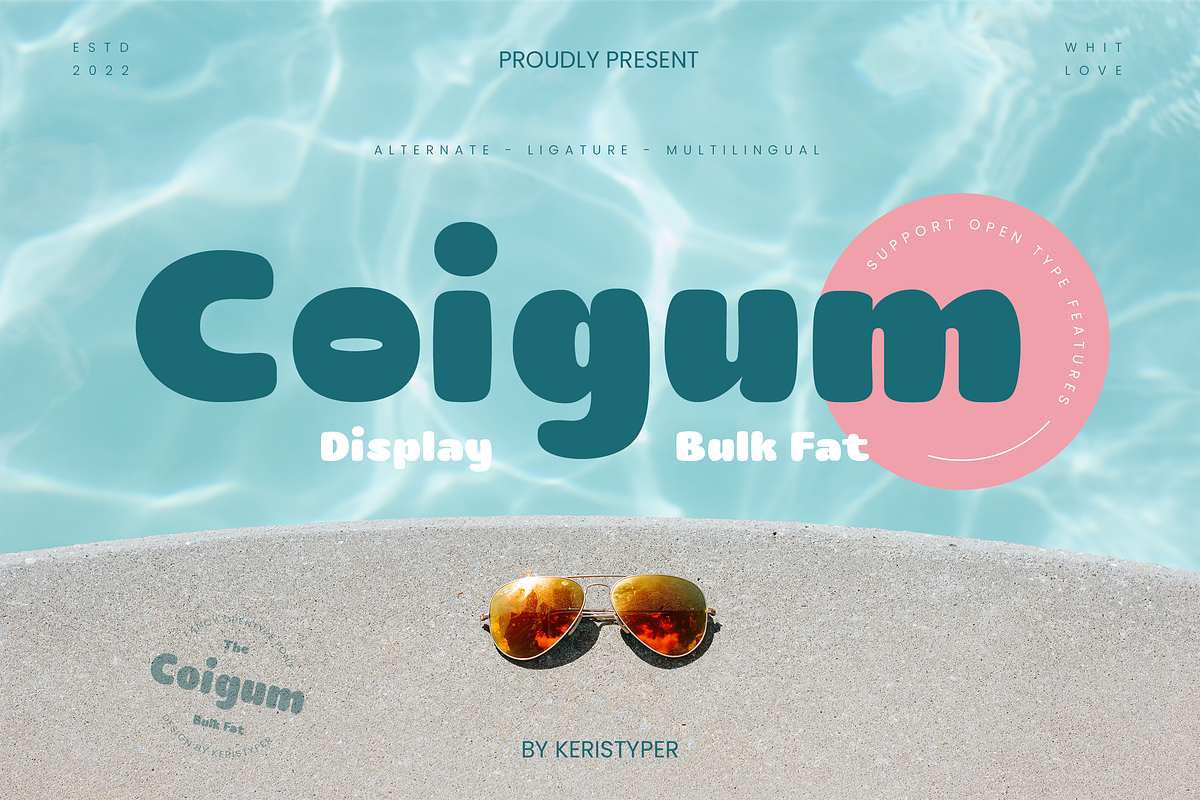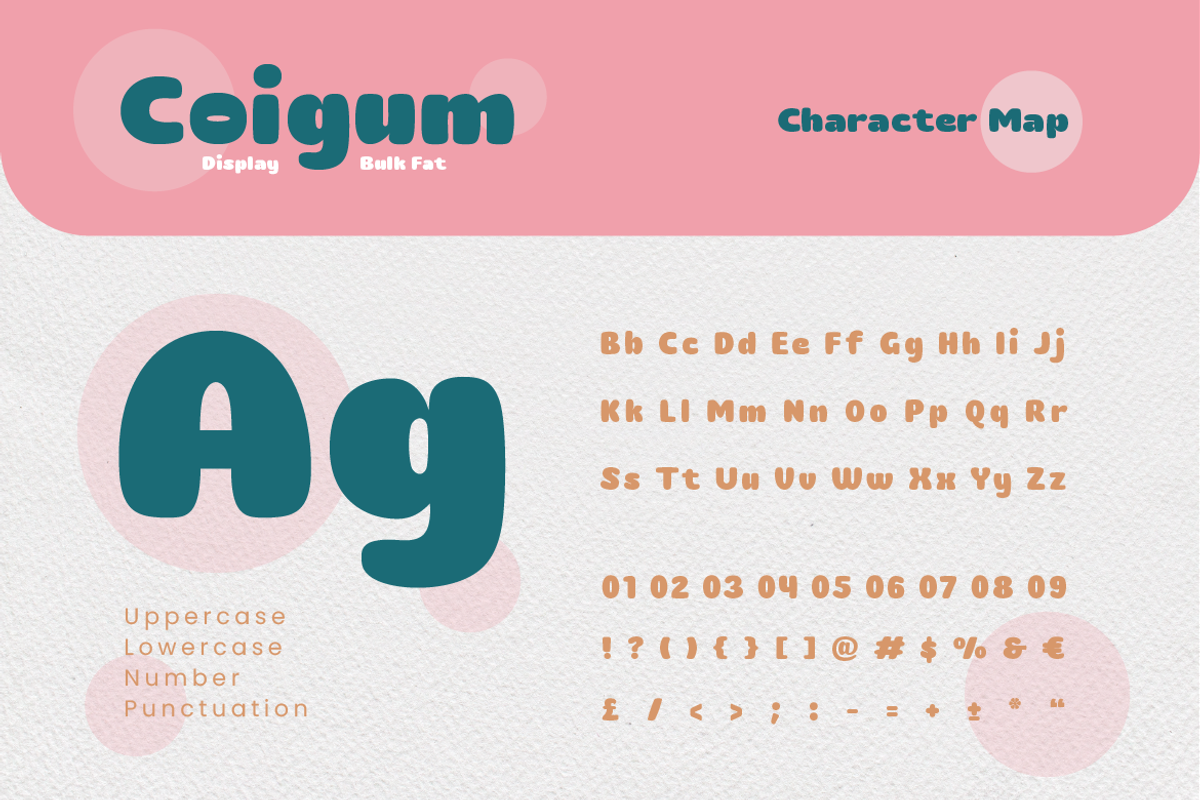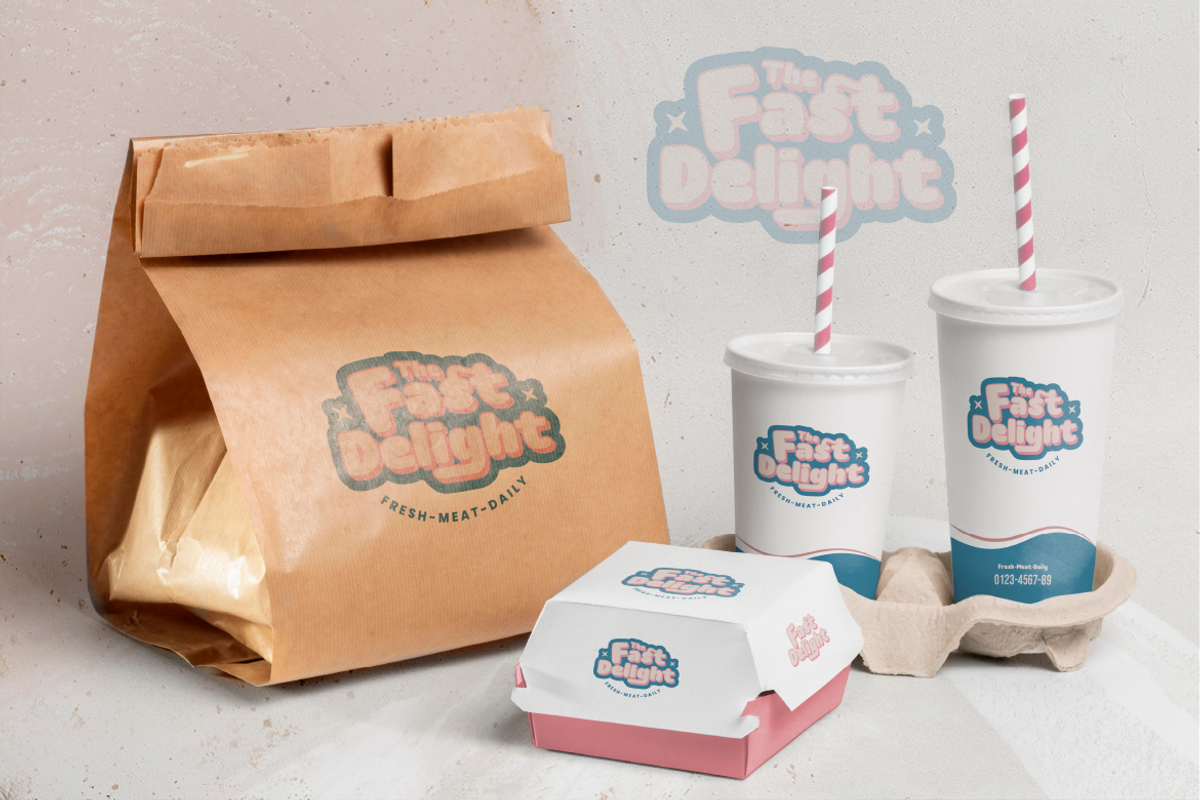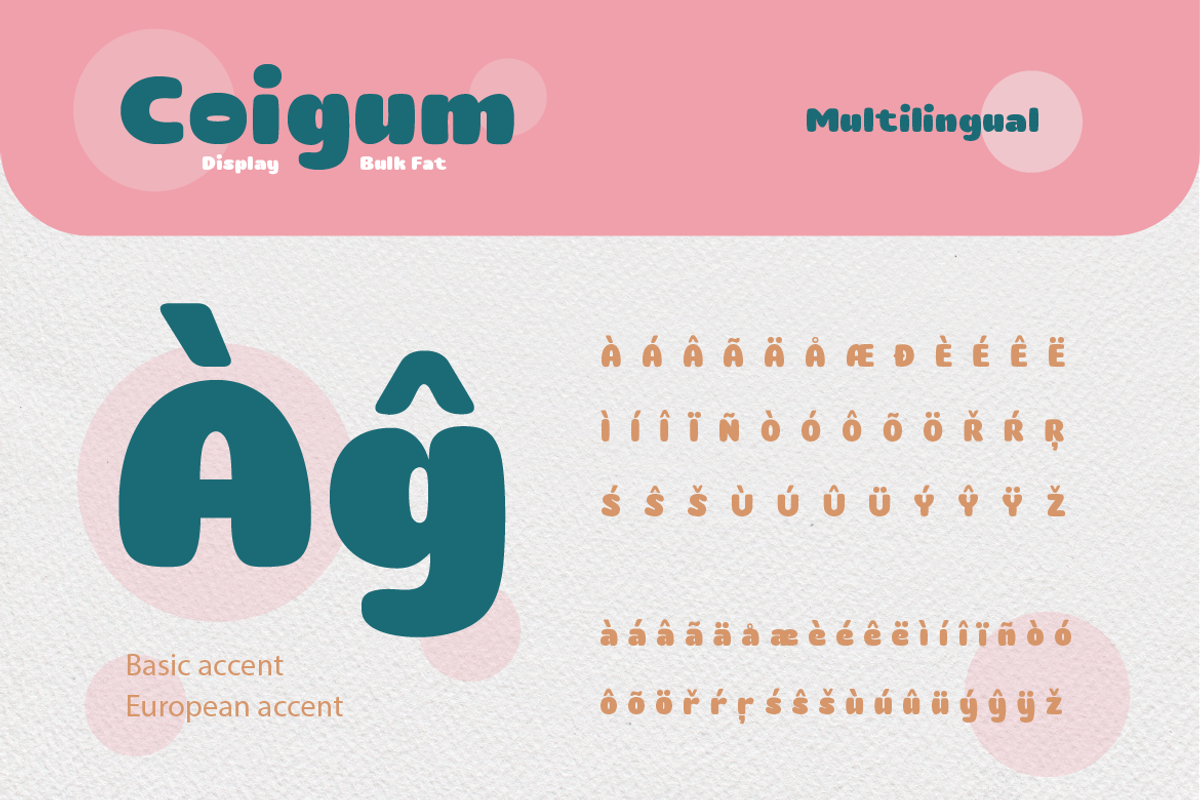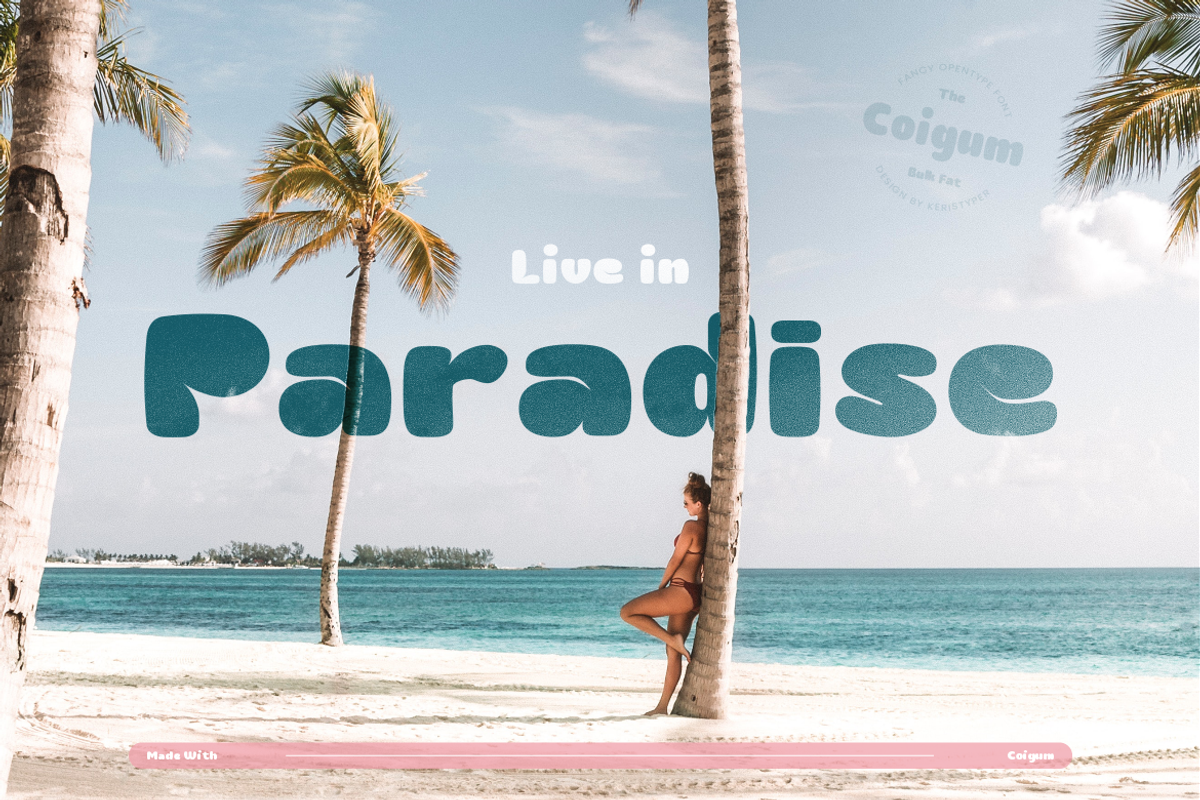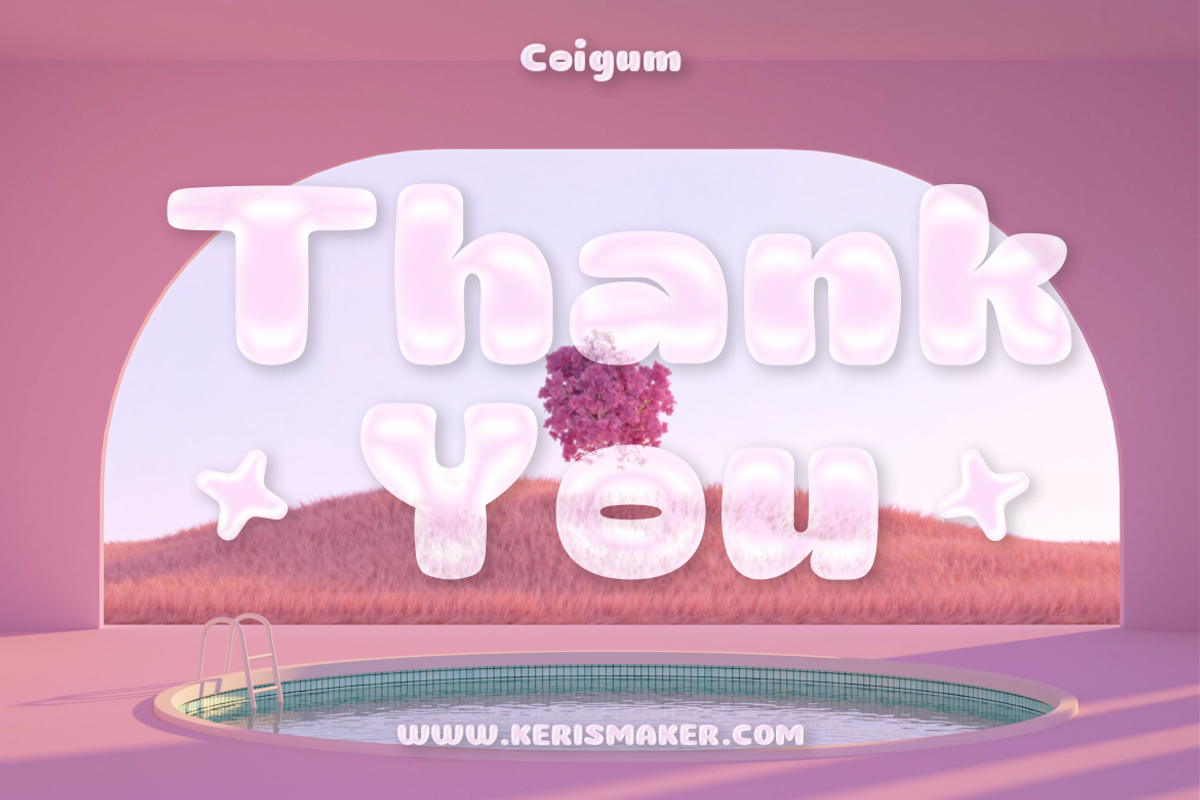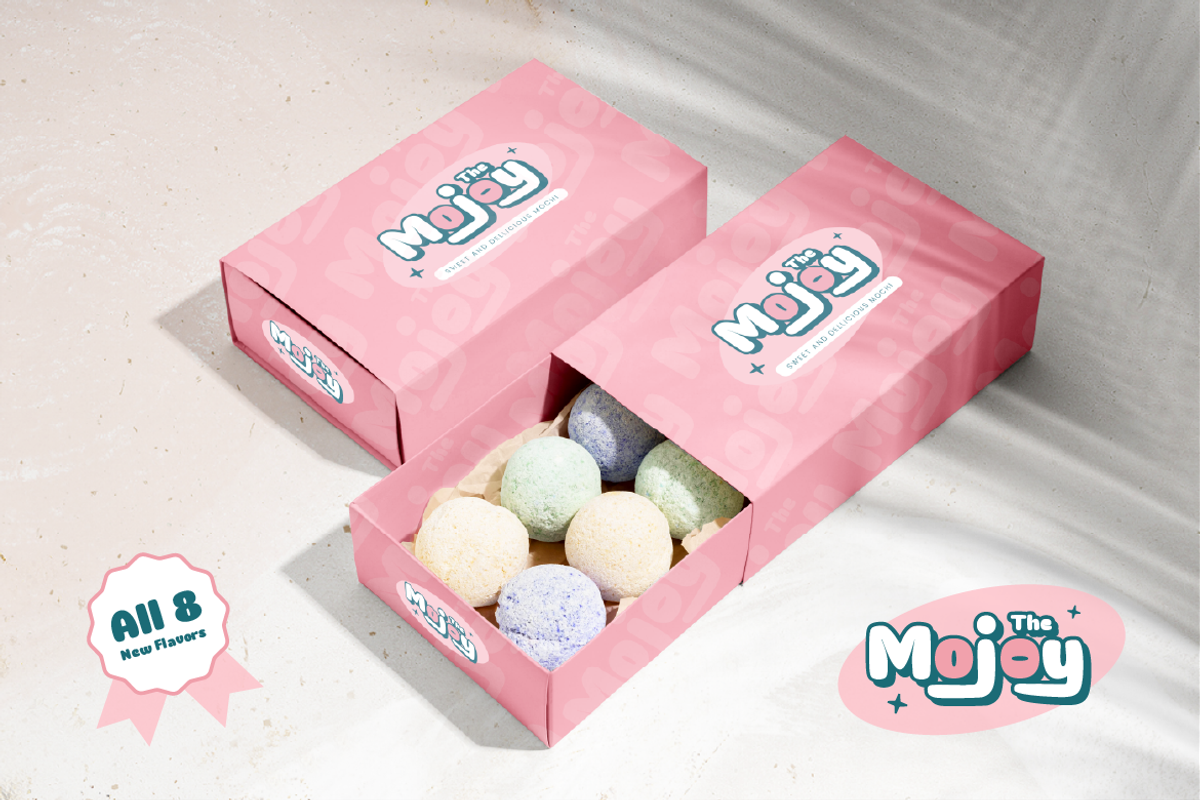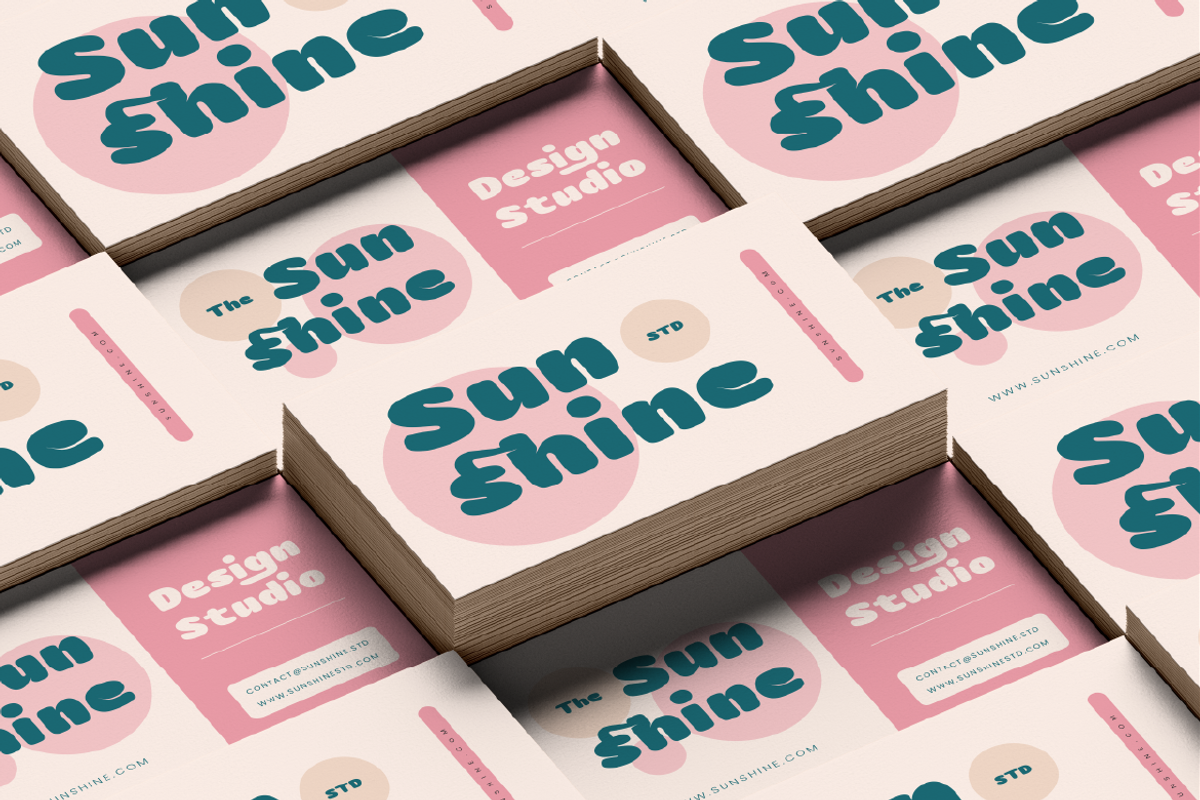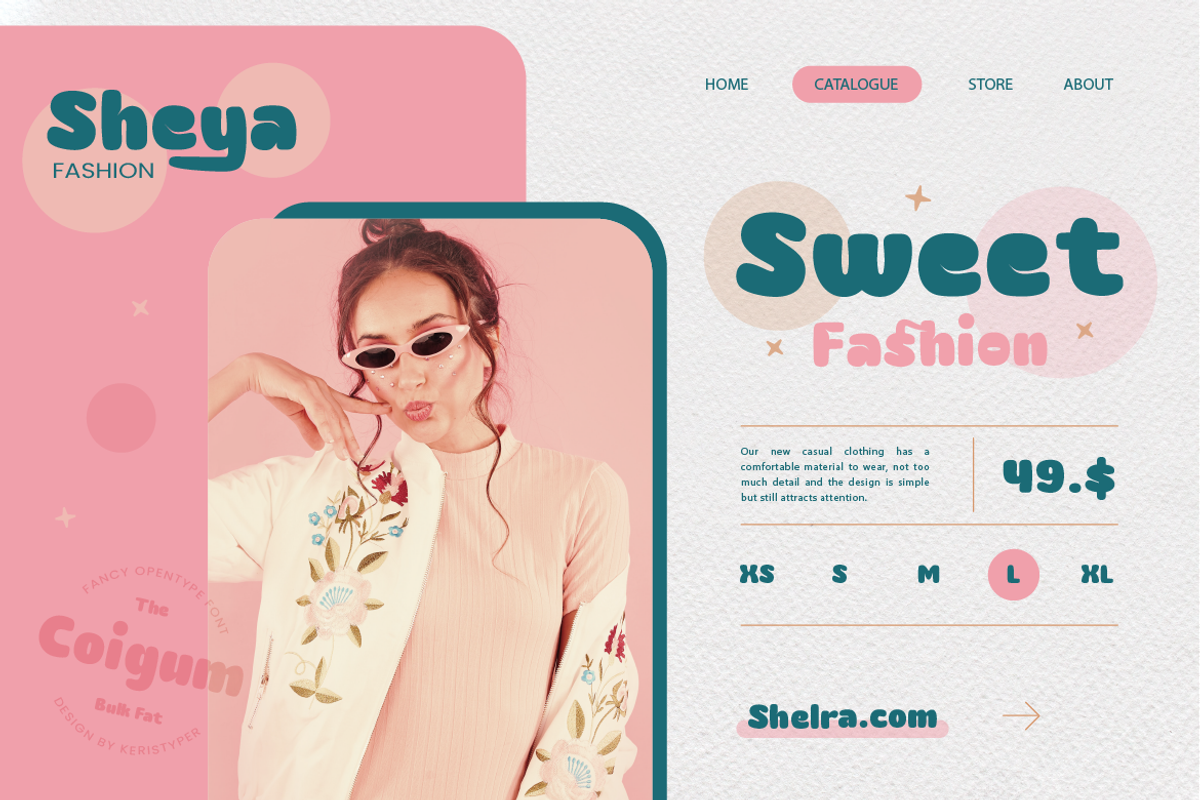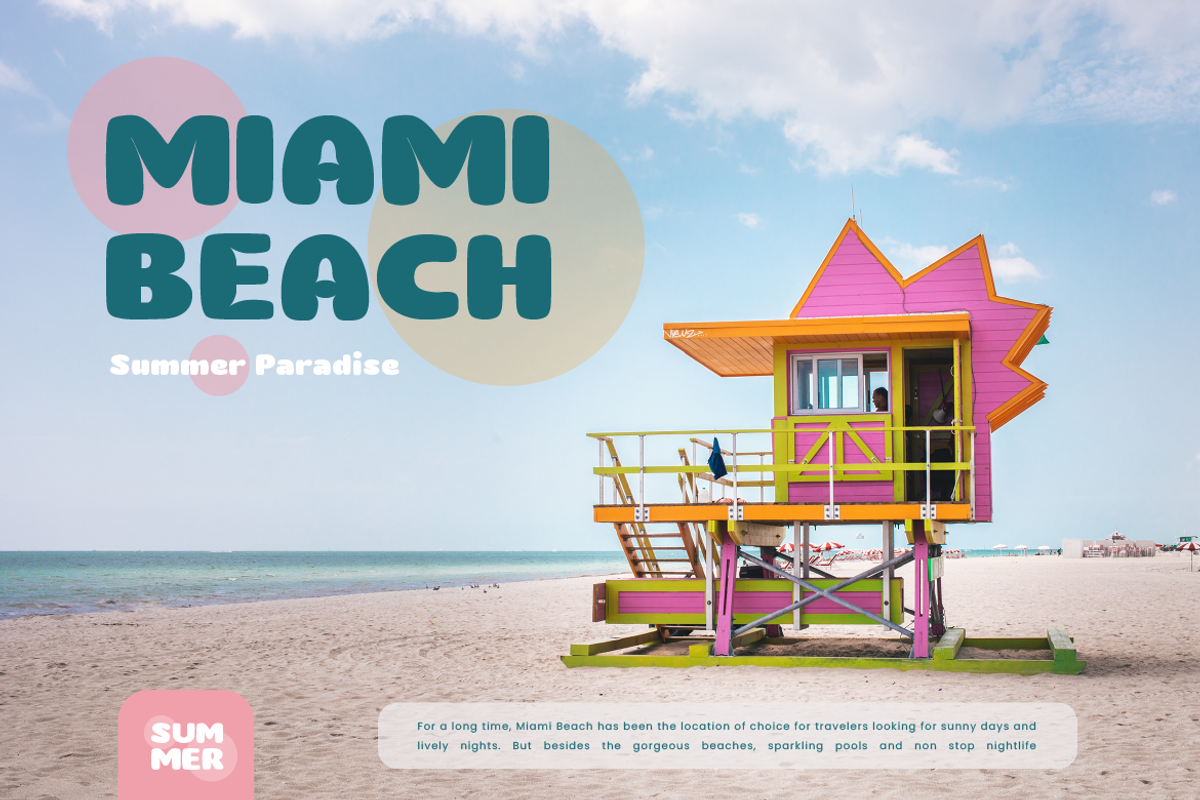
Coigum
Coigum is a modern display font that is perfect for creating attention-grabbing headlines, titles, and logos. Its bold and fat lettering style is sure to make a statement and capture the viewer's attention. This font is ideal for projects that require a bold, strong, and impactful appearance, such as posters, advertisements, packaging, and branding materials. With its unique and modern design, Coigum is a great choice for designers who want to add a touch of boldness and energy to their projects.
- Standard, Uppercase & Lowercase
- Multilingual : ä ö ü Ä Ö Ü ß ¿ ¡
- Alternate & Ligature